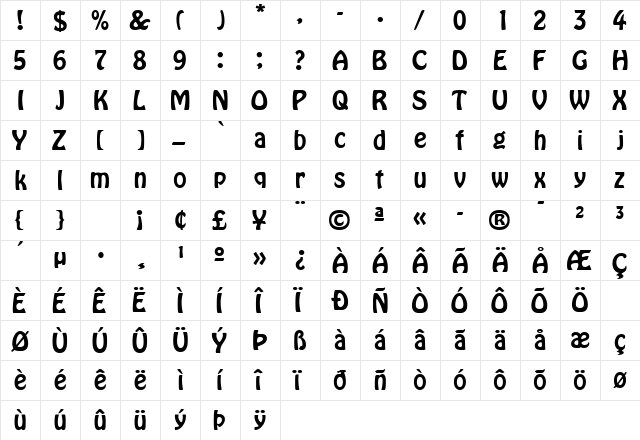
BoffoSSK Regular
Design Context for BoffoSSK Typeface
BoffoSSK takes a measured approach to typography — its balanced proportions and neutral character make it a reliable workhorse for both digital and print work.